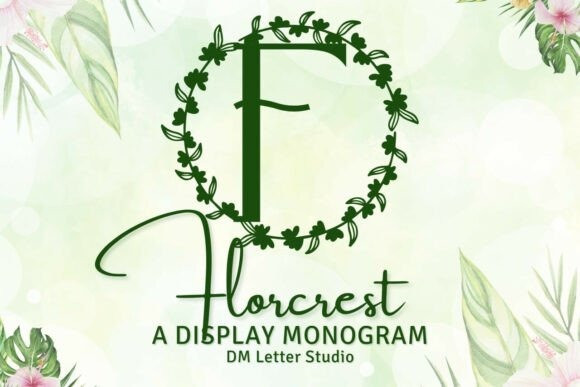
Florcrest Monogram Font
Florcrest Monogram Font turns initials into graceful emblems with a subtle botanical touch. Strokes feel clean and poised. Curves stay open, so tiny tags still read clearly. Use it for wedding suites, boutique logos, keepsake gifts, and premium packaging. Moreover, Florcrest pairs beautifully with soft serifs and modern sans fonts, which keeps layouts refined without extra effort.
Set single, double, or triple initials for logos and seals. Then frame them with laurel rings, oval borders, or fine rules to echo the floral spirit. Since proportions favor symmetry, polished compositions come together in minutes. As a result, your thumbnails stand out on crowded marketplaces, and your listings look consistent across product lines.
Install the files and start designing right away in Canva, Photoshop, Illustrator, and popular cutting apps. Also, the smooth curves hold foil, emboss, and engraving beautifully. Consequently, cards, boxes, acrylic signs, and vinyl labels keep crisp detail through every run. Next, build seasonal palettes like champagne and charcoal, blush and espresso, or midnight and pearl to expand your catalog quickly.
Keep initials large and let white space breathe. Pair the headline monogram with a quiet serif or humanist sans for supporting text. Meanwhile, add micro shadows, a thin inner stroke, or a delicate frame for depth. Because the forms feel airy, metallic accents and textured papers lift perceived value. Finally, keep copy short so the monogram remains the hero.